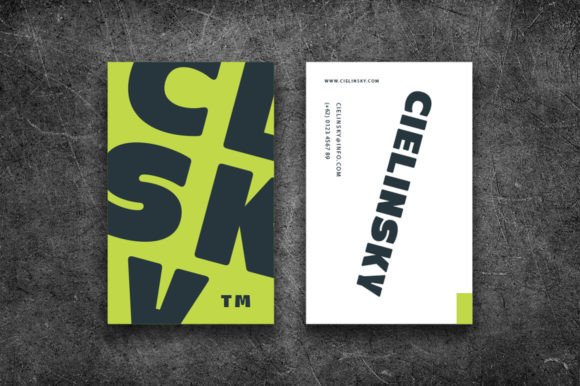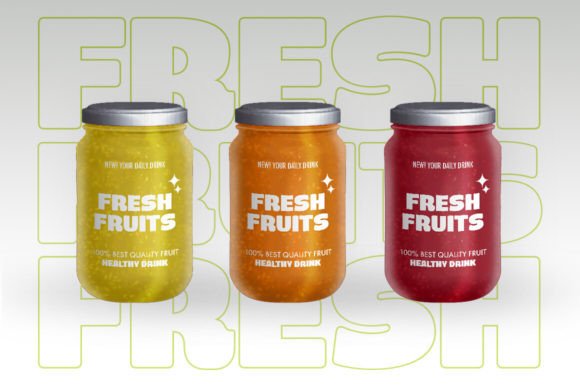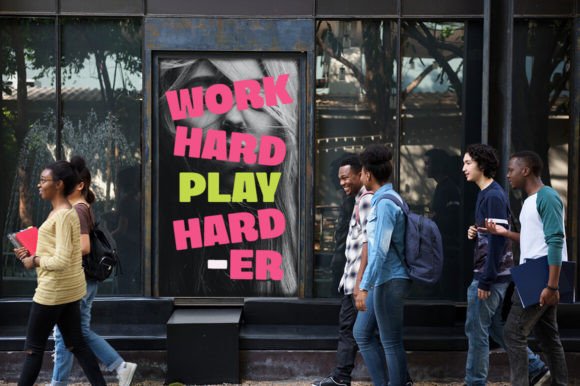
Introduction to Hushy Font
Hushy is a rounded bold and modern display typeface that features the perfect amount of trendiness.
Whether you’re using it for crafting, digital designing, presentations or greeting cards making, it’s perfect .
Key Features of Hushy Font
Why Choose Hushy Font?
Hushy Font offers exceptional quality and versatility, making it a valuable addition to your design toolkit. Whether you’re creating for personal projects or commercial use, Hushy Font delivers professional results.